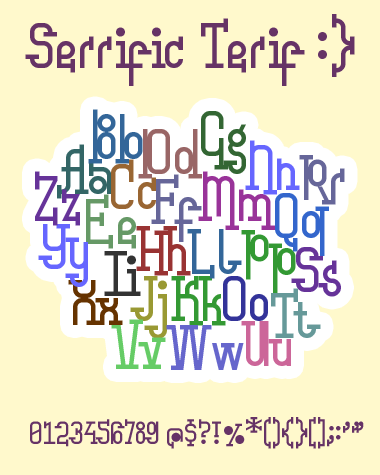
Serrific Terif
Funny fontstruction with no certain pattern or logic :) Clonable.
Very architaraz, very playful, very good. 10/10
The letters have minds of their own :) 10/10
The e is the only character that has a square corner. It doesn't really match up with the rest of the font.
Besides that, I love this font! It's awesome. 9/10
@Rahi-Tak: Read the description, it doesn't really have an order, although I agree, the e doesn't really fit.
Oh! You fixed the e :)
@winty5:
Yes, I fixed it, I always consider fontstructors' suggestions ;)